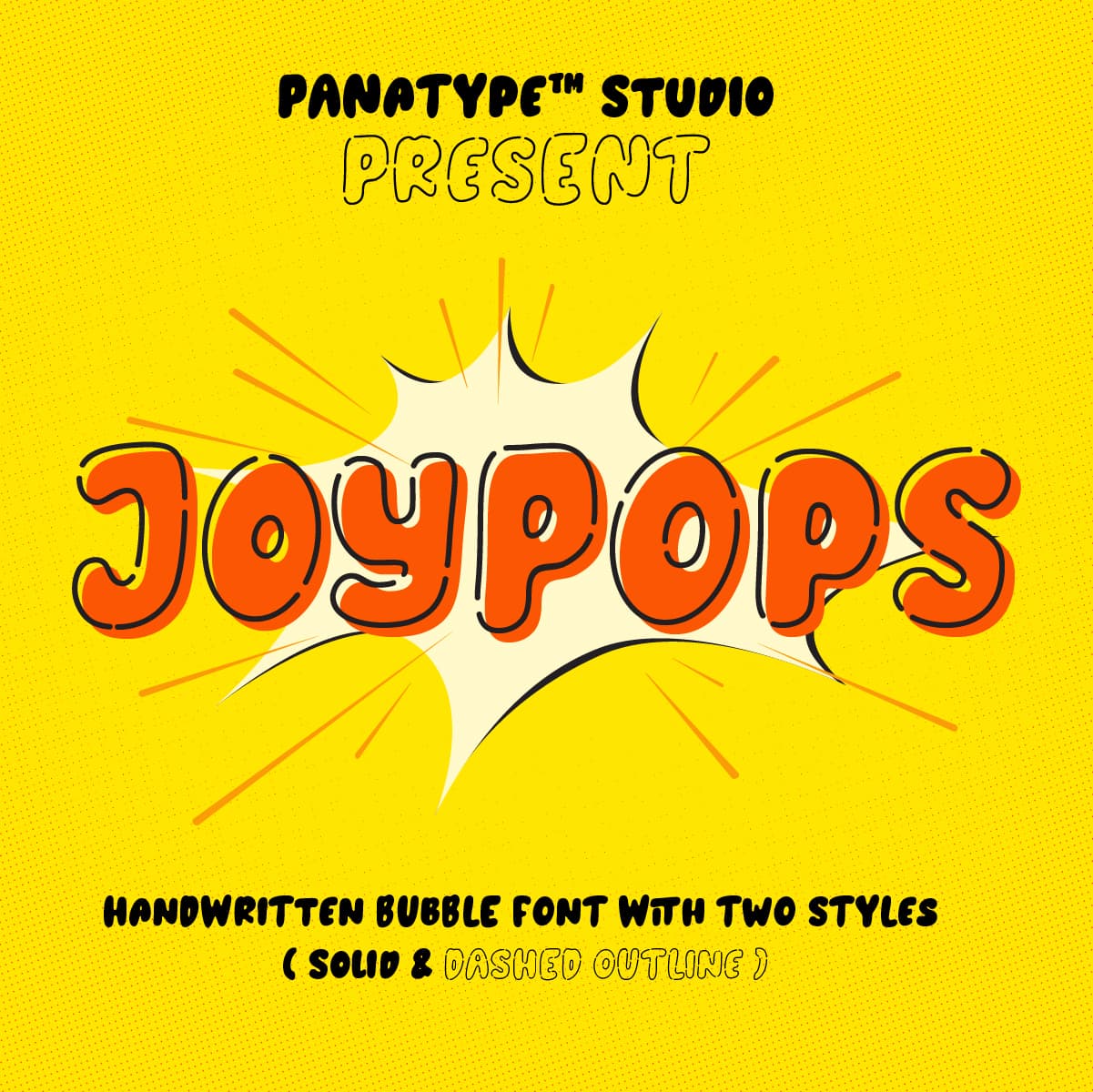
<p>Joypops is a handwritten bubble font, with two style ( solid & dashed line) make perfect combination, fun character with a bit of ligatures and alternates. To give you an extra creative work. Joypops font support multilingual more than 100+ languages. This font is good for logo design, Social media, Movie Titles, Books Titles, a short text even a long text letter and good for your secondary text font with sans or serif. Make a stunning work with the Joypops font</p>